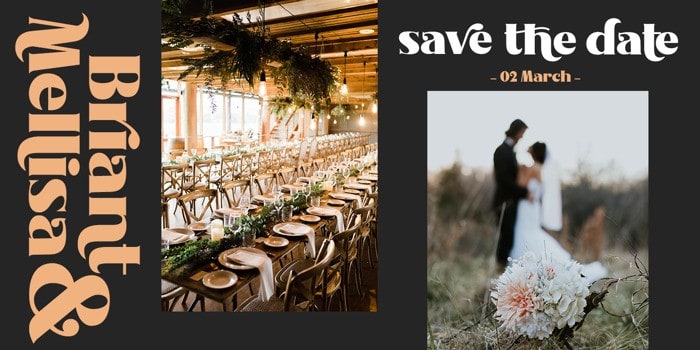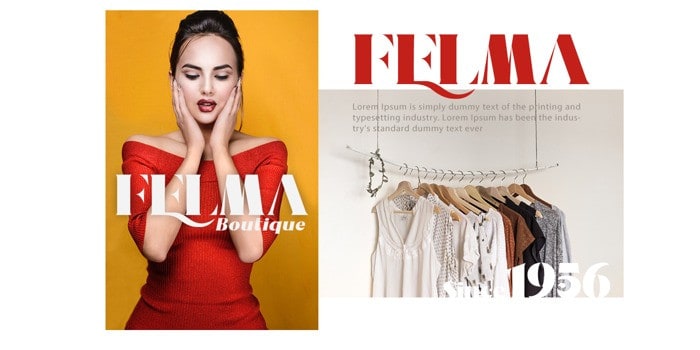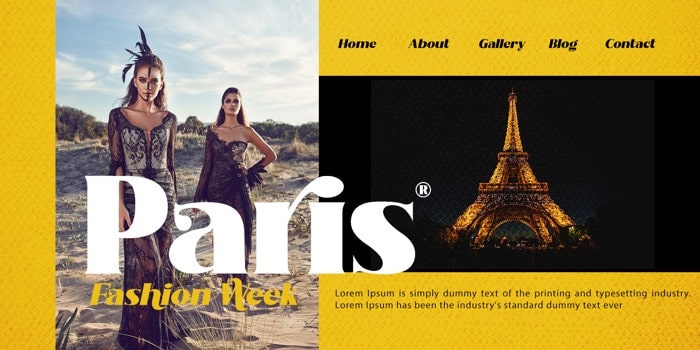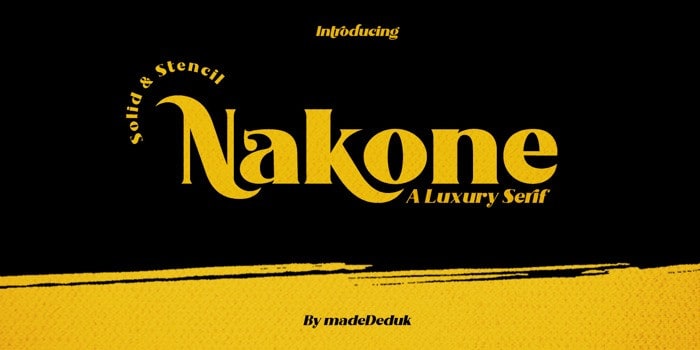
Nakone Serif Font is a fashionable and chic serif font. Made from font designer named madeDeduk. It’s a luxury bold Serif with two style solid and stencil font files. A lot of stylish alternates will makes this font suitable for your any your project design. Great for magazines, editorials, blogs, logo designs, branding, web design, and more!